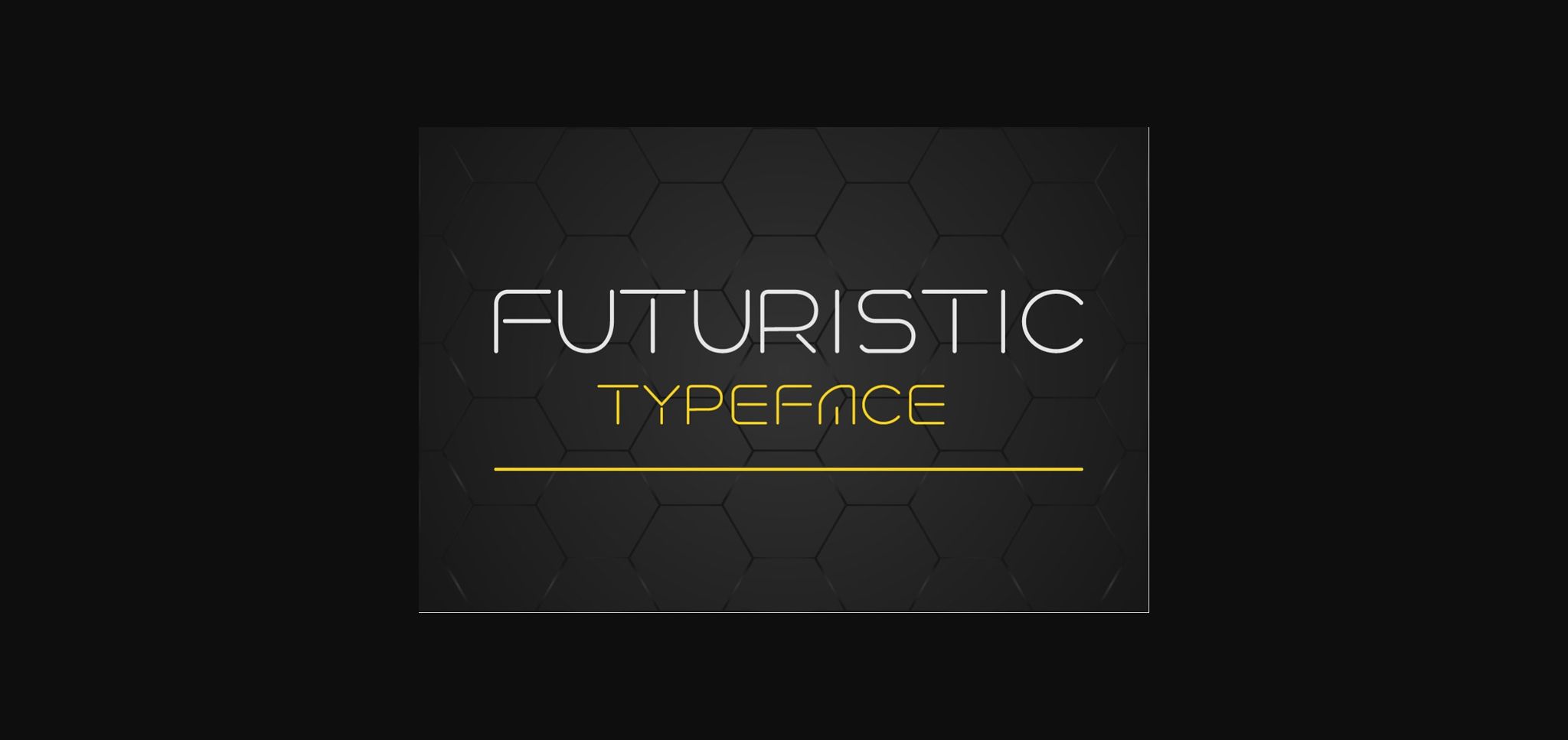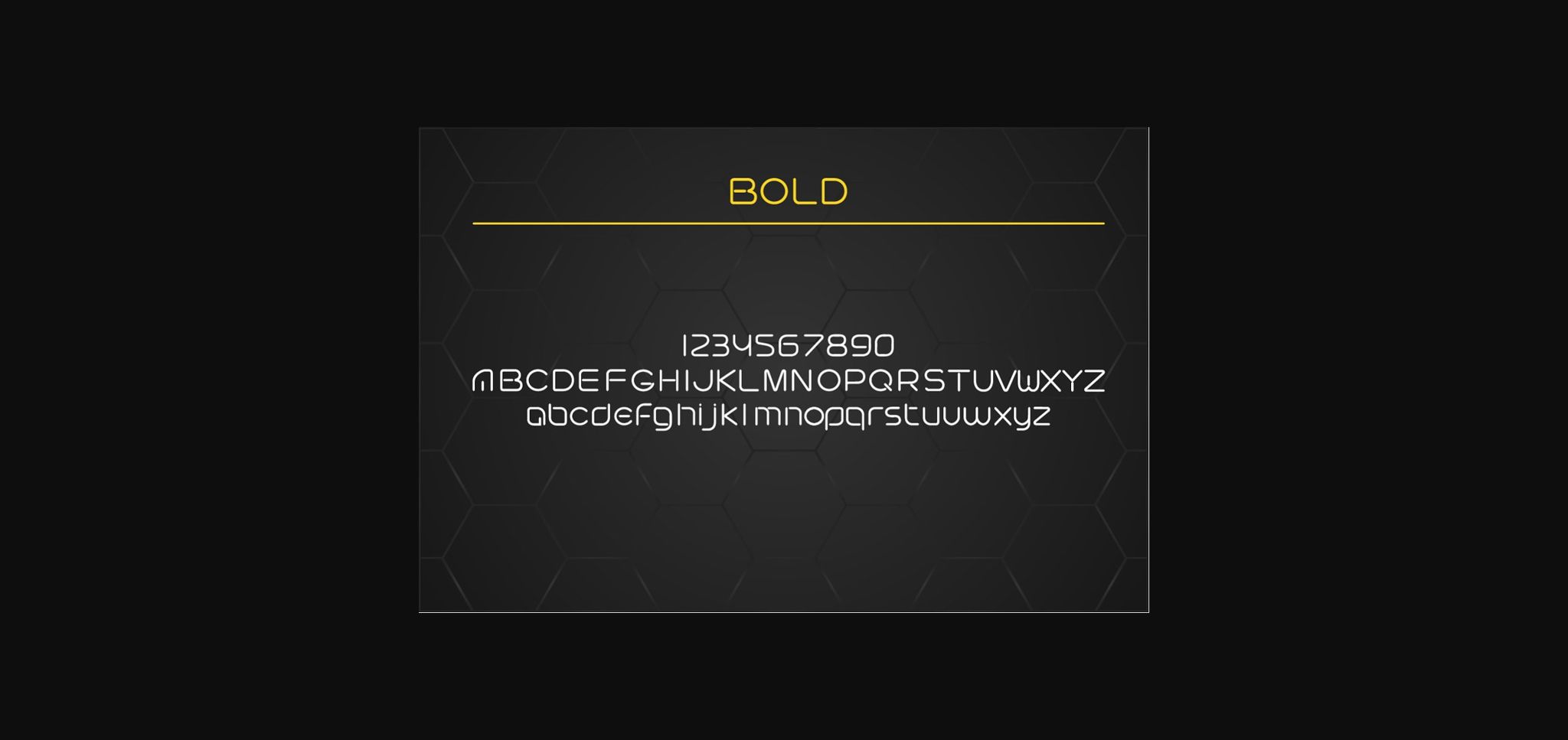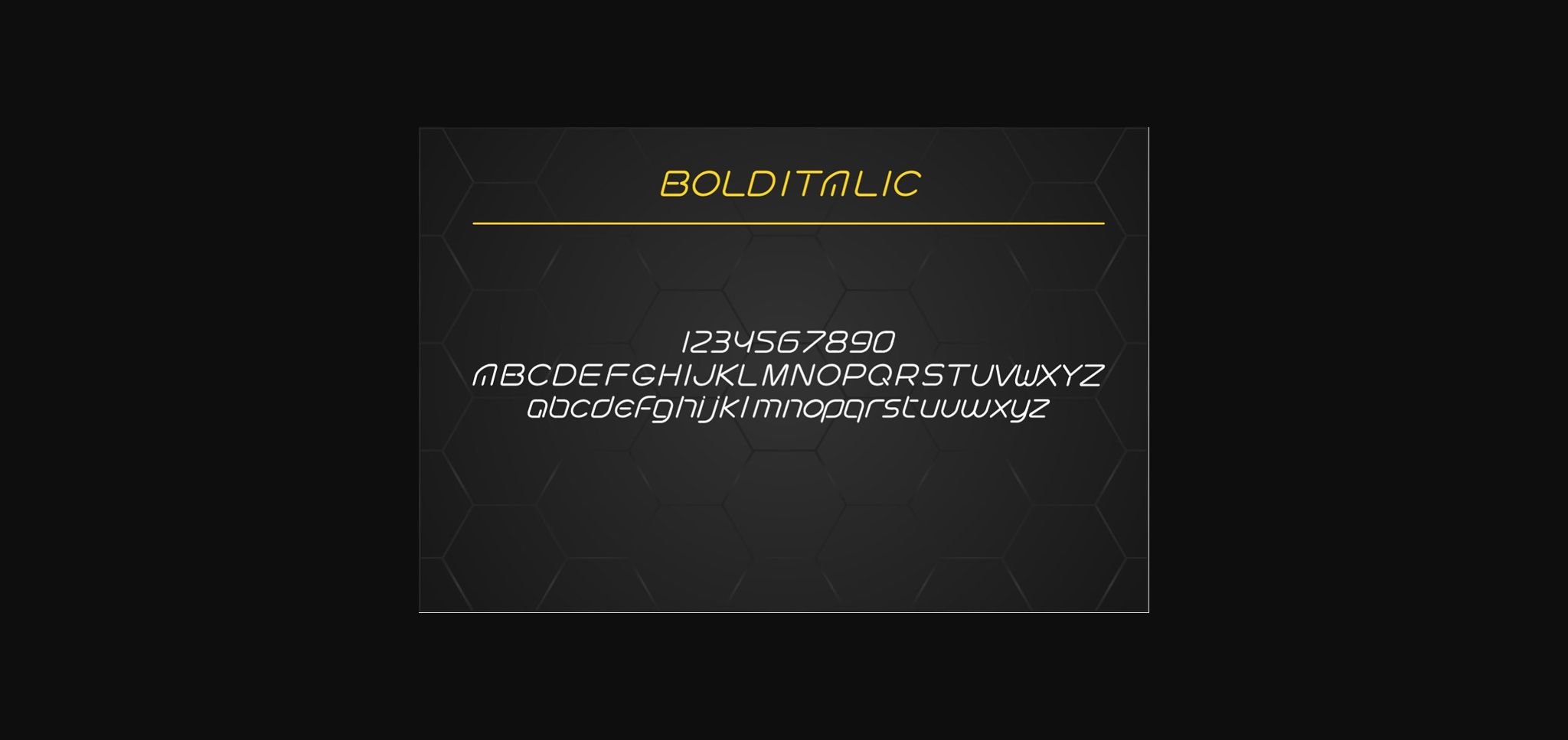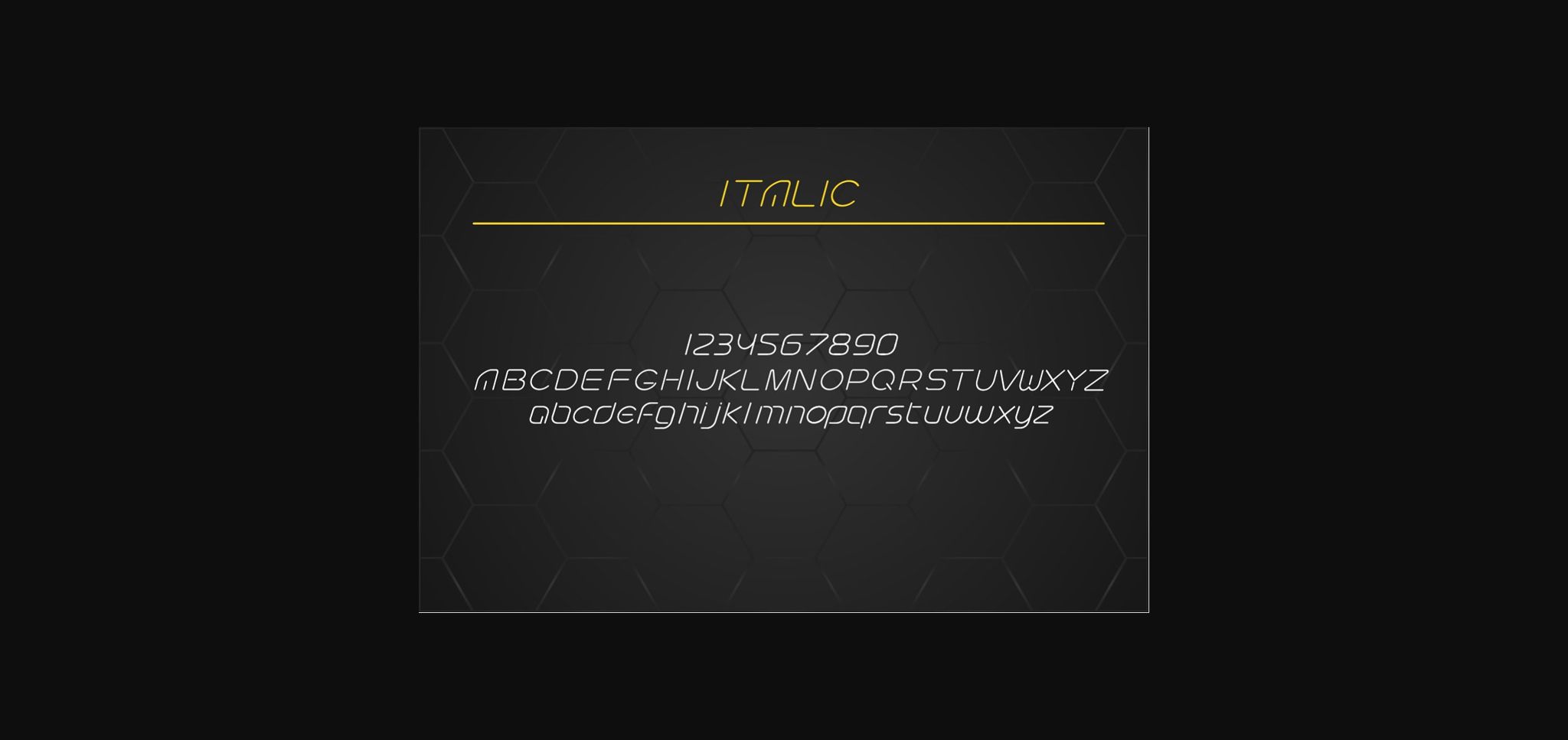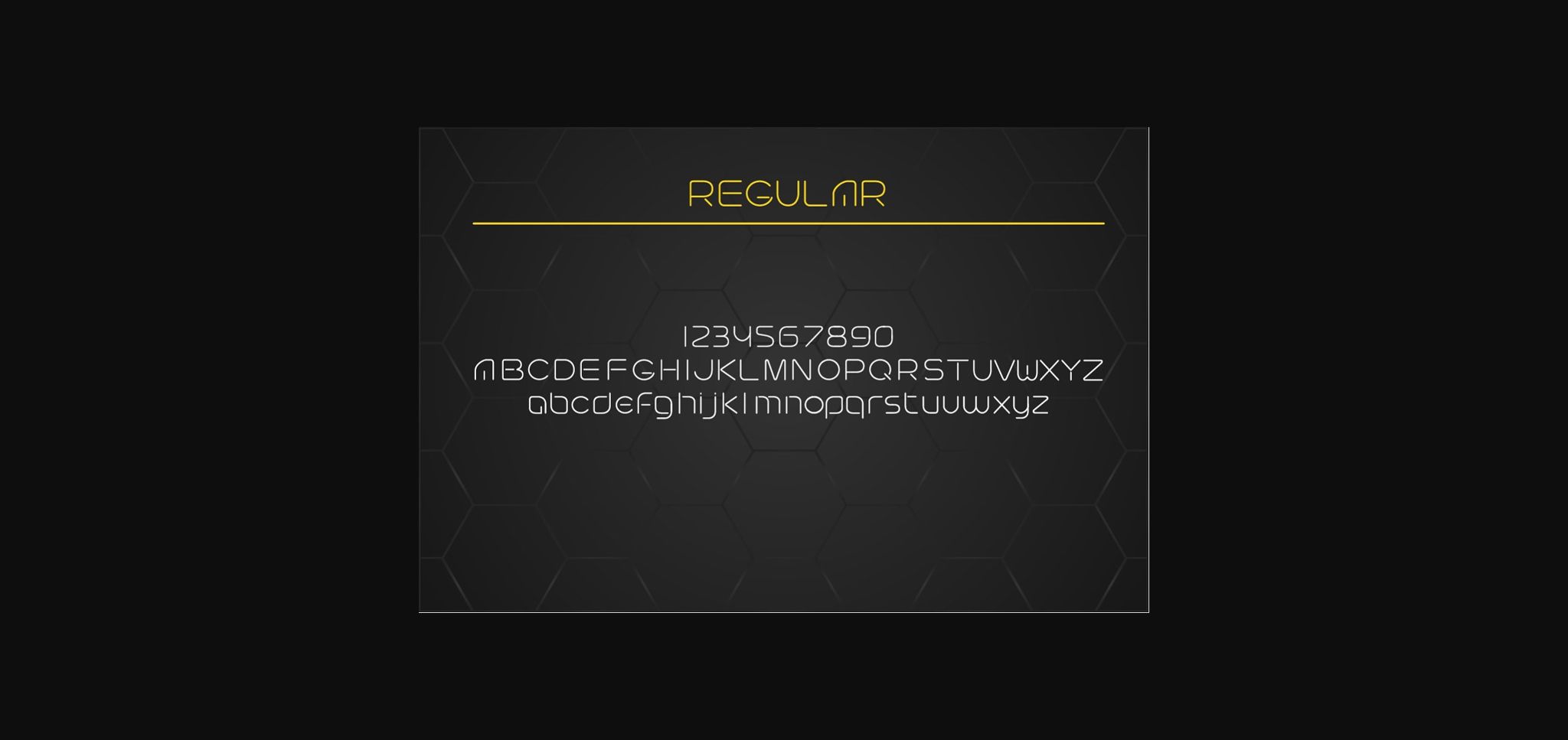
HomeSans Serif FontsFuturistic Font Sans Serif Fonts Futuristic Font FacebookXPinterestWhatsApp 1 of 7 ... Futuristic Font Poster 2... Futuristic Font Poster 3... Futuristic Font Poster 4... Futuristic Font Poster 5... Futuristic Font Poster 6... Futuristic Font Poster 7... About Futuristic Font Futuristic is a minimal sans serif font. Clean and simple, this font will be the perfect choice for any design ideas you can think of. DOWNLOAD NOW People also explored Alterbreak Font Guthen Jaqueline Font Queen Magic Font Hinata Font Courtland Font Bristhday Holiday Border Font Jolly Yellows Font Ronet Font 400 0 TagsFuturistic Font Previous articleGojali FontNext articleThe Forest Font LEAVE A REPLY Cancel reply Comment: Please enter your comment! Name:* Please enter your name here Email:* You have entered an incorrect email address! Please enter your email address here Website: Save my name, email, and website in this browser for the next time I comment. Personal Use Free Senza Bella Personal Use Free Read more about this font Good Luck Personal Use Free Read more about this font Sarwendah Personal Use Free Read more about this font Latifah Personal Use Free Read more about this font BLOG Transform Your Website: Elevate Your Typography with 7 Best Web Font Generators Are you ready to transform your website's typography from ordinary to extraordinary? Great! Today, we're diving into the world of web font generators, which... How to Install and Use Fonts on Windows, macOS, and Web Projects To increase your work productivity, choose the most readable fonts. Using Fonts in Digital Marketing: Tips to Strengthen Your Brand Identity